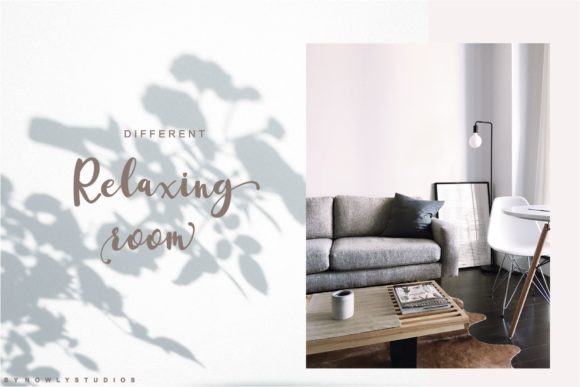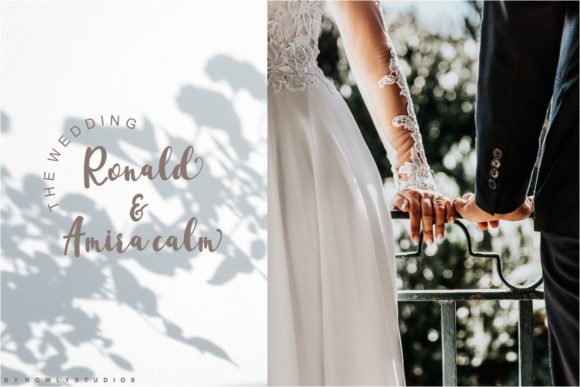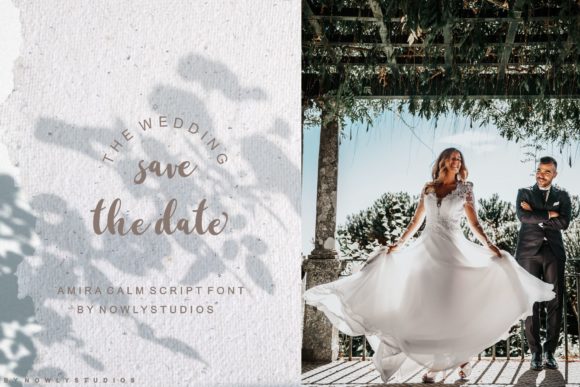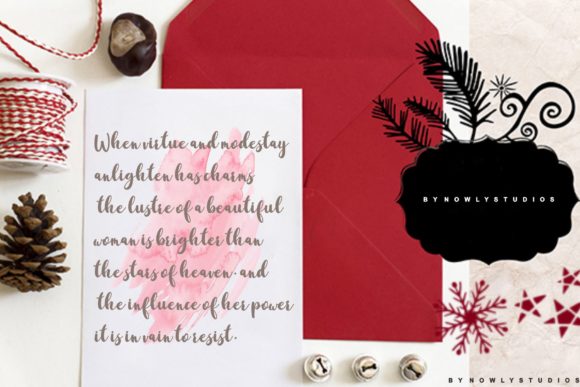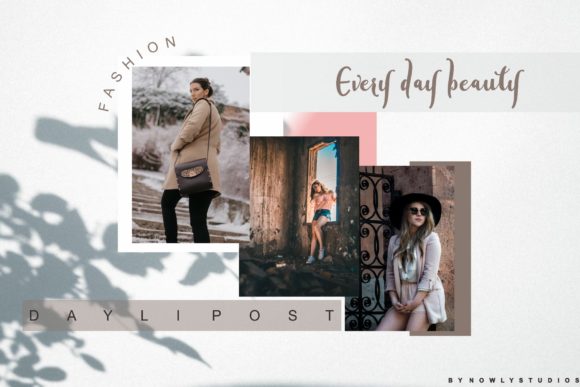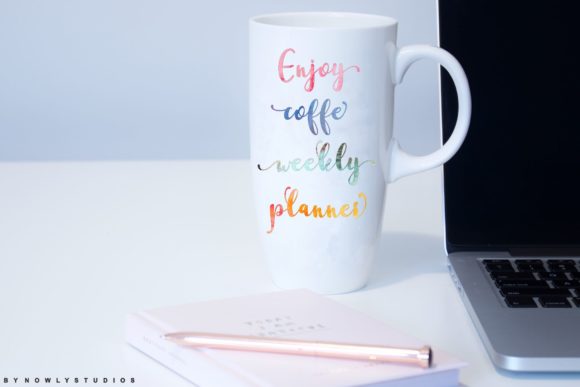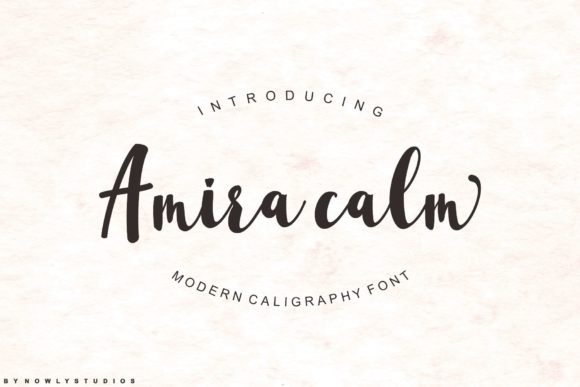
Discover the Relaxed Charm of Amira Calm Font
Are you looking for a font that embodies the carefree spirit of summer? Look no further than Amira Calm, a cool and relaxed script font that’s perfect for designers and crafters seeking a contemporary style. In this article, we’ll dive into the world of Amira Calm, exploring its unique features, usage ideas, and the inspiration behind its creation.
What is Amira Calm Font?
Amira Calm is a beautifully crafted script font that exudes a sense of calmness and serenity. Its summery feel makes it an ideal choice for designs that require a touch of warmth and personality. The font’s contemporary style ensures that it will complement a wide range of design projects, from branding and advertising to packaging and digital media.
Key Features of Amira Calm Font
- Unique Letterforms: Amira Calm boasts distinctive letterforms that are both elegant and relaxed. The font’s characters are carefully designed to create a sense of fluidity and movement.
- Contemporary Style: The font’s modern aesthetic ensures that it will fit seamlessly into a variety of design contexts, from minimalist to elaborate designs.
- Script Style: Amira Calm’s script style adds a touch of sophistication and elegance to any design project.
- Multilingual Support: The font supports multiple languages, making it a versatile choice for designers working on international projects.
Inspiration Behind Amira Calm Font
The inspiration behind Amira Calm font lies in its name – calmness and serenity. The creators aimed to design a font that would evoke feelings of relaxation and tranquility, perfect for summer-themed designs or projects that require a laid-back vibe. The result is a font that’s both refreshing and captivating.
Usage Ideas for Amira Calm Font
Amira Calm font is incredibly versatile, making it suitable for a wide range of design projects. Here are some usage ideas to get you started:
- Branding and Logo Design: Use Amira Calm to create a unique and memorable brand identity that reflects your company’s personality.
- Summer-themed Designs: Perfect for summer-themed designs, such as beach posters, summer camps, or outdoor events.
- Packaging Design: Add a touch of elegance and sophistication to your packaging designs with Amira Calm.
- Digital Media: Use Amira Calm in digital media, such as social media graphics, blog headers, or website designs.
Tips for Using Amira Calm Font
To get the most out of Amira Calm font, here are some tips to keep in mind:
- Pair with Bold Fonts: Combine Amira Calm with bold fonts to create a striking contrast and add visual interest to your design.
- Experiment with Colors: Play with different color schemes to find the perfect combination that complements the font’s summery feel.
- Use in Headings: Amira Calm font works beautifully in headings, making it perfect for titles, subtitles, and section headers.
Amira Calm font is a beautiful and unique script font that’s perfect for designers and crafters seeking a cool and relaxed style. Its contemporary aesthetic, combined with its summery feel, makes it an excellent choice for a wide range of design projects. With its key features, usage ideas, and tips for using the font, Amira Calm is sure to inspire your next design project.